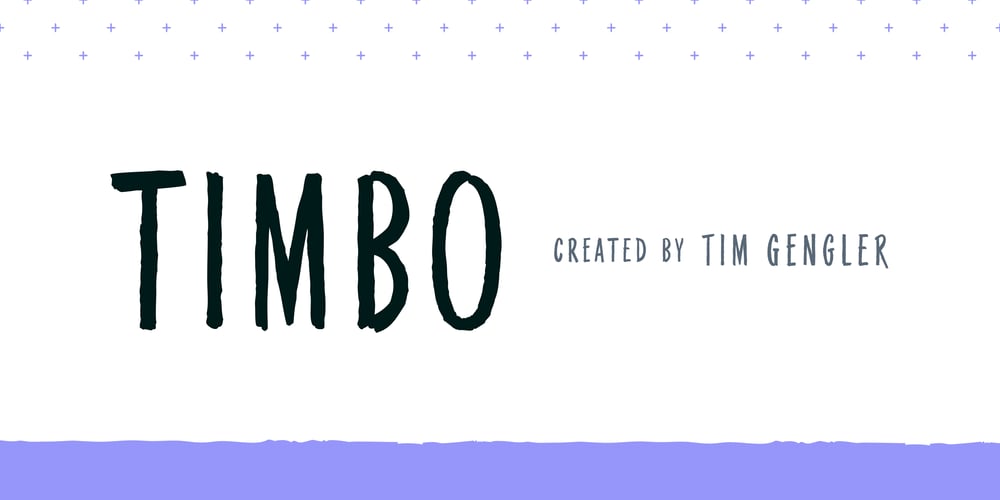
Timbo
Timbo font
Timbo Font Family was designed by Tim Gengler and published by Bunny Dojo. Timbo contains 2 styles and family package options. Timbo draws inspiration from 1940s advertising but is warmly at home across all eras.The font’s hand-painted styling embraces a variety of emotions, bringing casual charm to invitations or enhancing the mystery in a world of thrills & chills.Structure meets improvisation for a uniquely bright, focused liveliness: A sturdy, condensed base supports, as Timbo’s imperfection encourages wild creative swings.–Uppercase